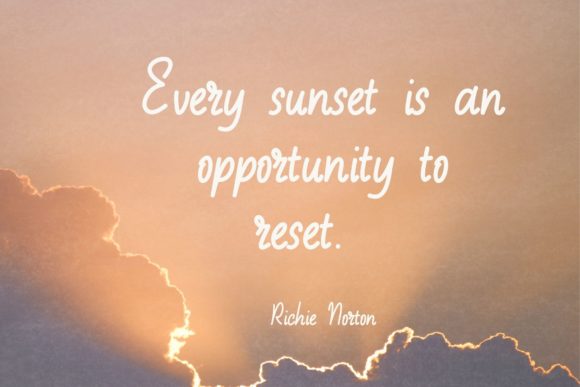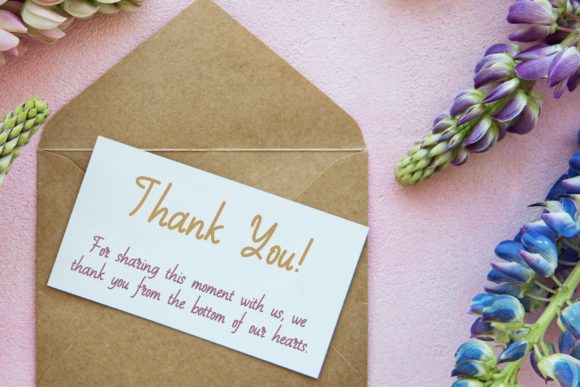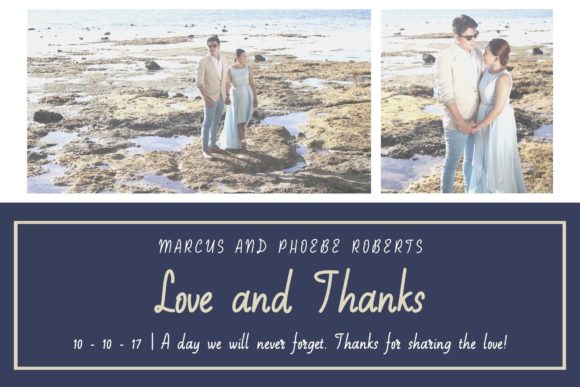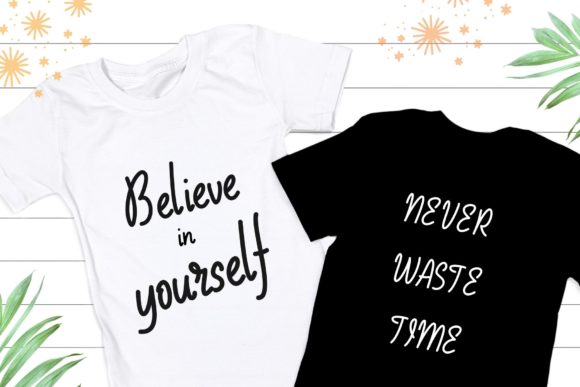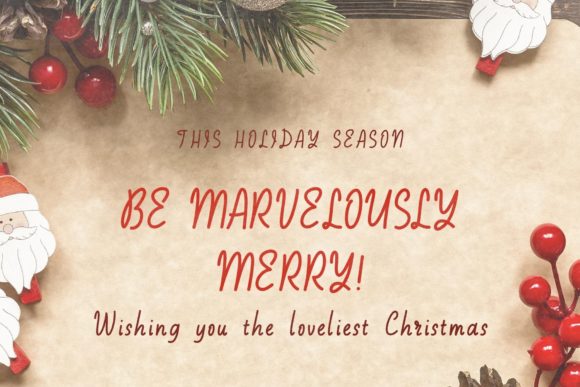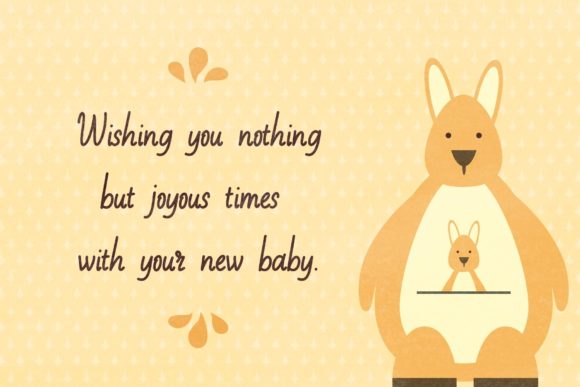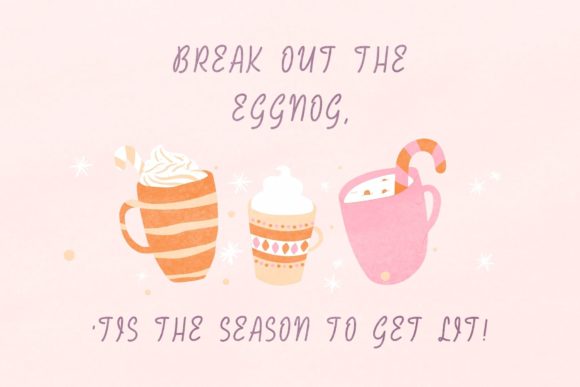
California Hot Beach Font
About California Hot Beach Font
California Hot Beach is a sweet and friendly handwritten font. Its natural and unique style makes it incredibly fitting to a large pool of designs. The only limit is your imagination!